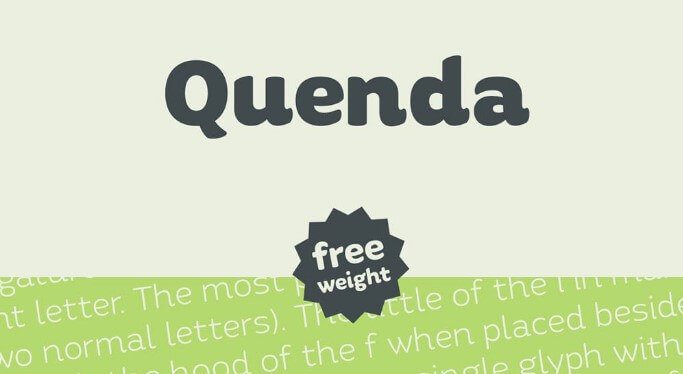
Quenda typeface is a small sans-serif family, designed and shared for the primary time by way of Marc Lohner.
This serif font includes six weights, thin to heavy. Because of its rounded terminals and a mild, it seems as handwritten look. This basic font is really a great contribution by the designer.